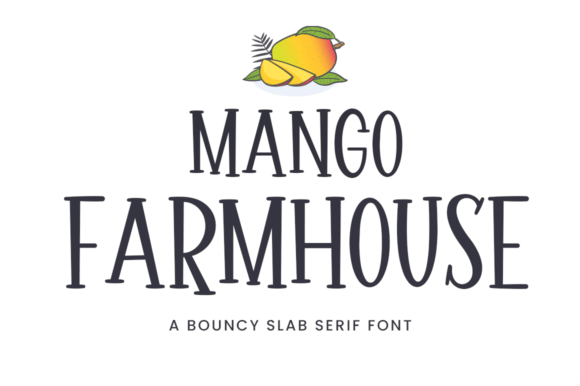
Mango Farmhouse is a light, fun, and bouncy font that’s perfect for all your summer projects. Fall in love with it and use it to create lovely designs.